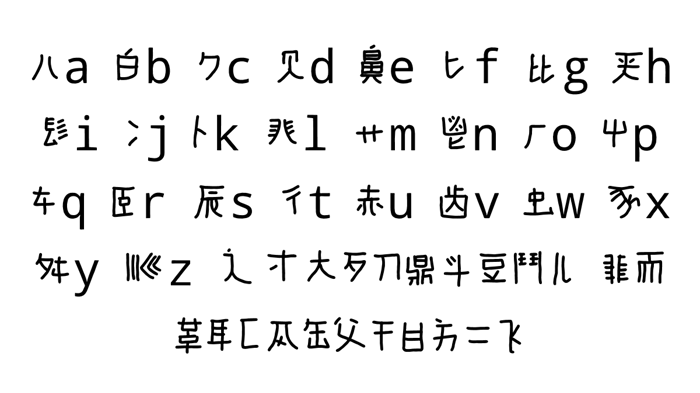
mandarin A-H Font
This font is a mix of chinese and english alphabets ... this font contain chinese radical sounds from a to h like ba,bi,biao,bing,bu,bai etc.. and so on